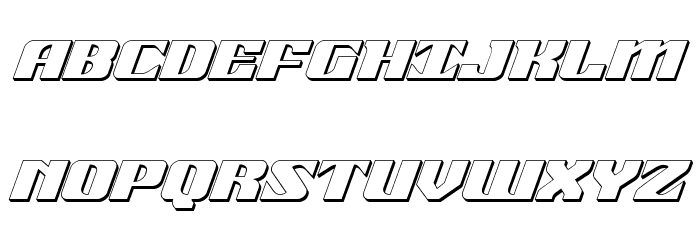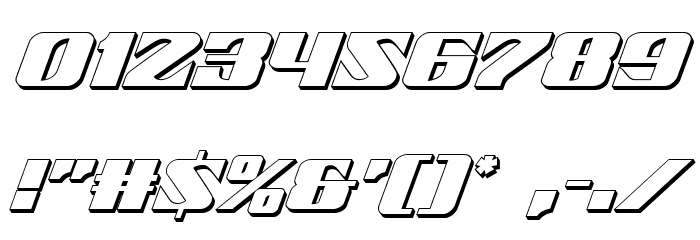
21 Gun Salute 3D Italic Font
This font features a bold, three-dimensional design with an italic slant, giving it a dynamic and modern appearance. The characters are outlined, creating a striking visual effect that adds depth and dimension. The uppercase and lowercase letters maintain a consistent style, with sharp angles and clean lines. The numerals and special characters are designed to match the overall aesthetic, ensuring a cohesive look across all text. This font is ideal for projects that require a bold statement and a contemporary feel.
A bold, 3D italic font with sharp angles and outlined characters.
- Proposed Projects: Ideal for posters, logos, video game titles, and any design needing a modern, impactful look.